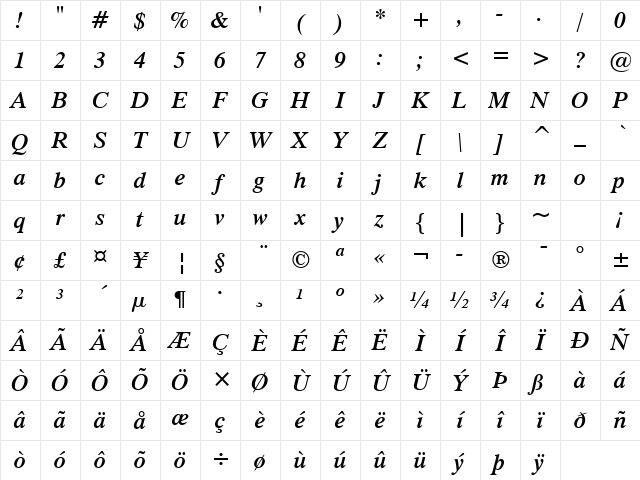
Dutch801 SeBd BT Semi-Bold Ital
Style: Semi-Bold Ital
Design Context for Dutch801 SeBd BT
Dutch801 SeBd BT is a composed and adaptable typeface that performs quietly and consistently across a wide range of design contexts. Its bold stroke weight gives it real presence on the page.